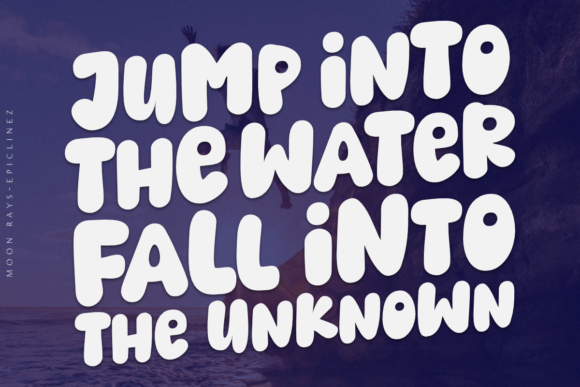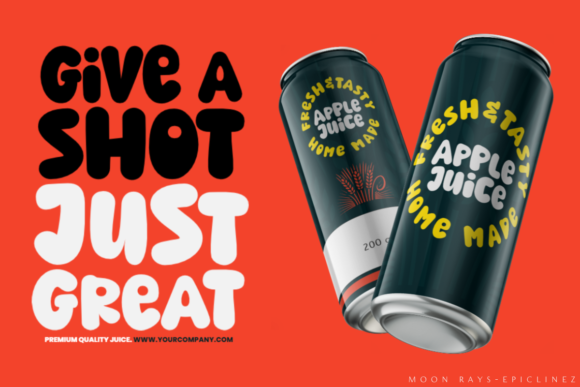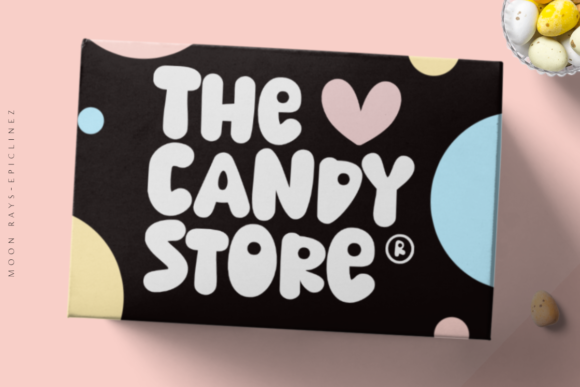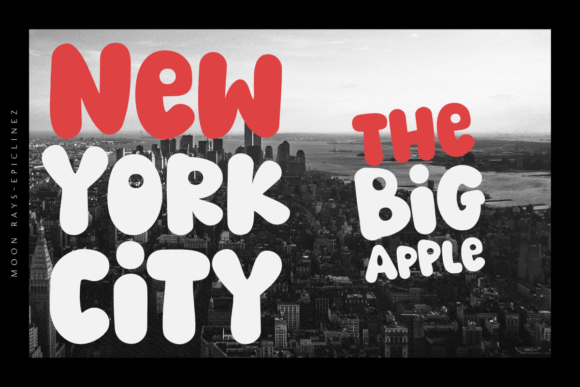
Introduction to Moon Rays Font
Moon Rays is a cool, thick lettered and fun looking display font.
Whether you use it for cartoon related designs, children games or just any creation that requires a lovely touch, this font will be an amazing choice .